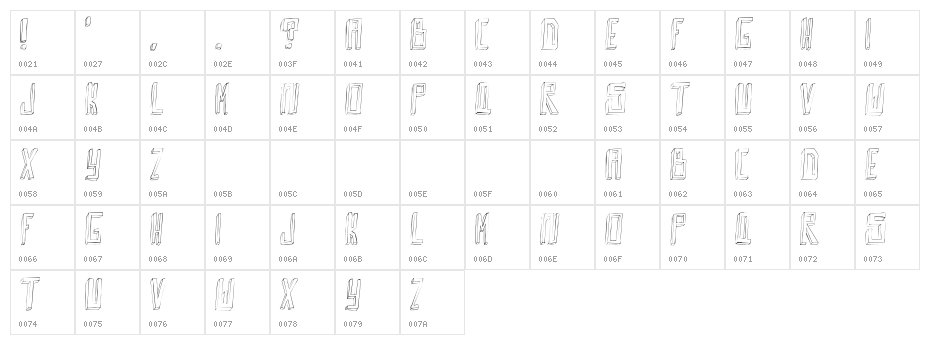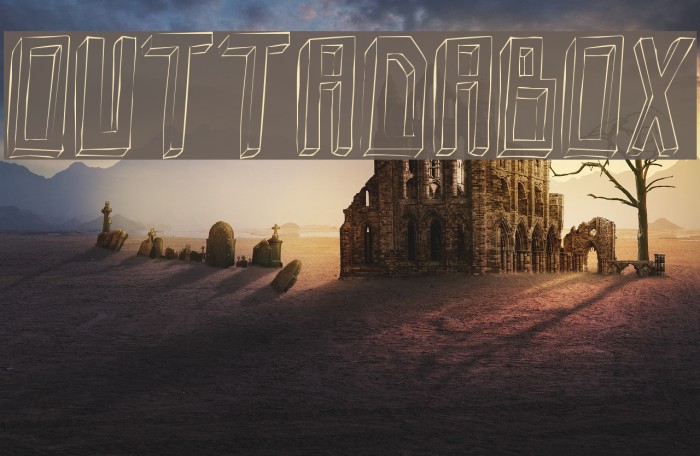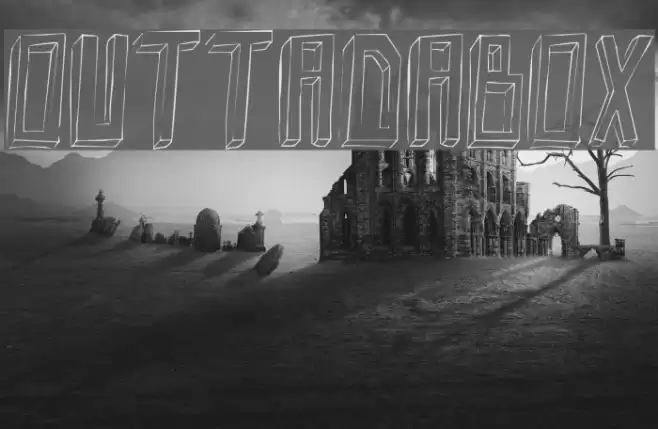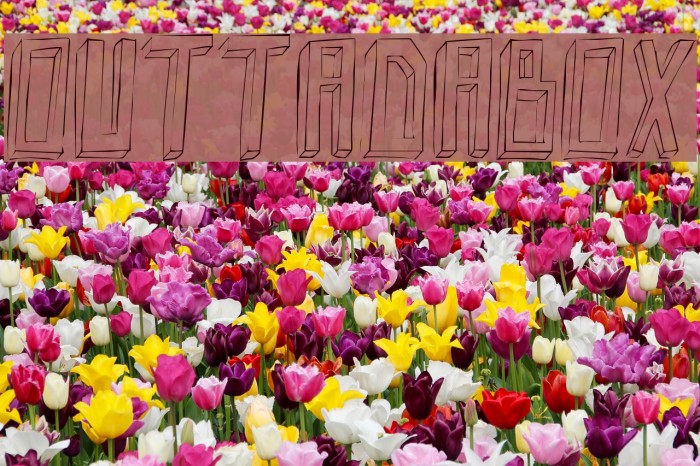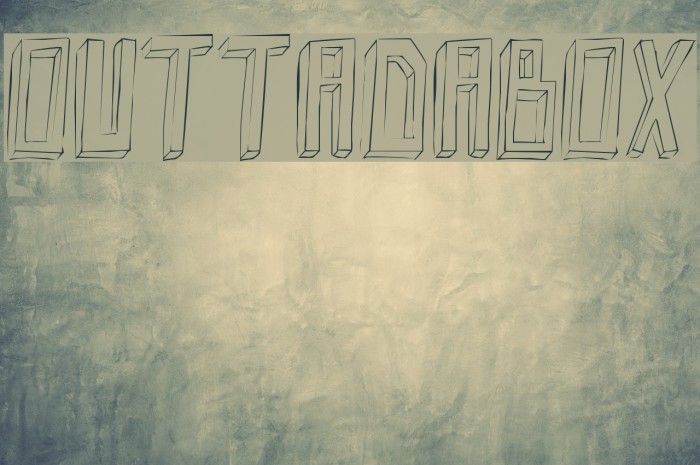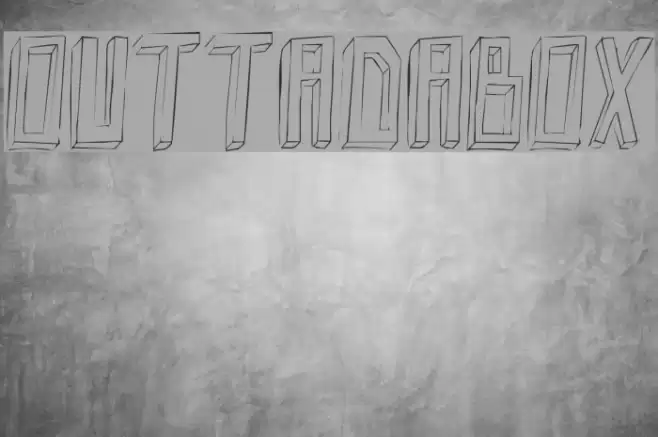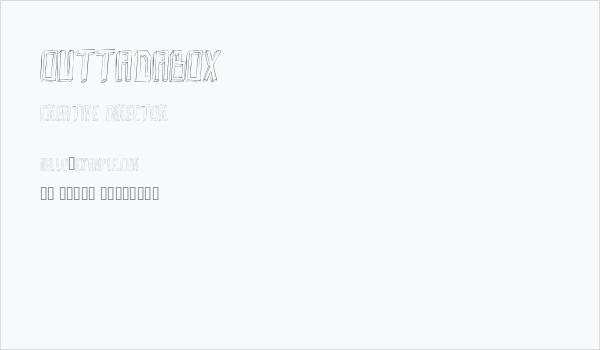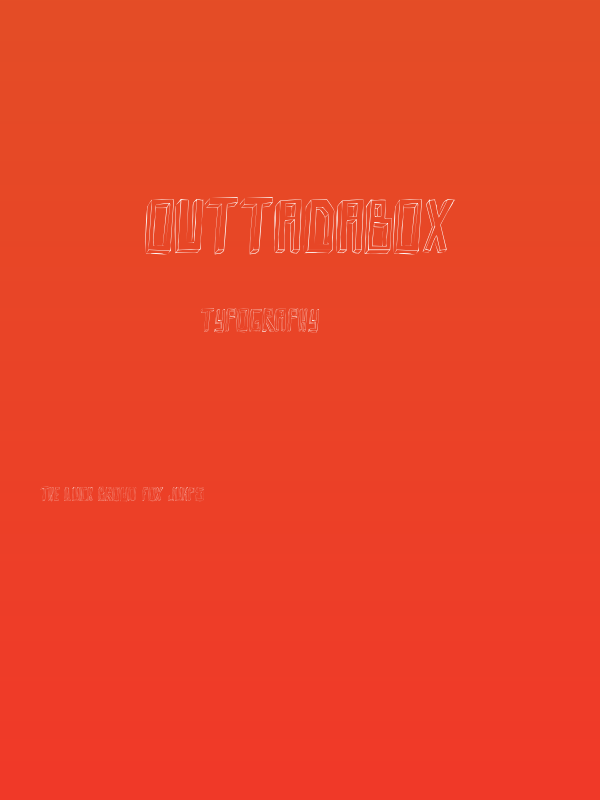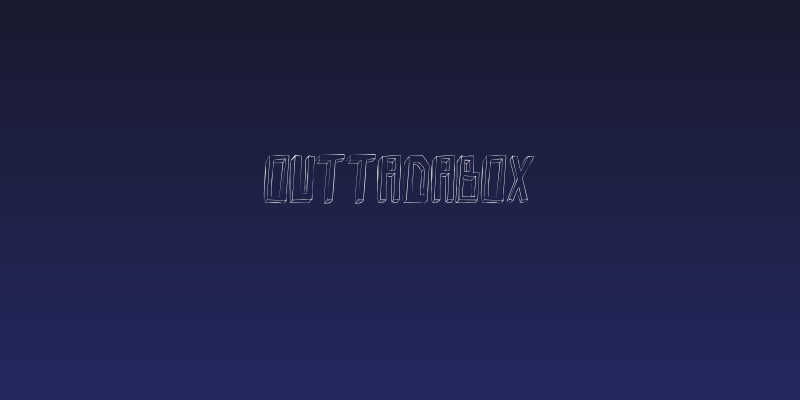
Outtadabox Font
Outtadabox Description
This font features a bold, three-dimensional style with a hand-drawn appearance. The letters are outlined with a sketch-like quality, giving them a dynamic and artistic feel. The uppercase and lowercase letters maintain a consistent geometric structure, while the numbers and special characters follow the same aesthetic, ensuring uniformity across the font. The font's unique design makes it stand out, with each character appearing as if it is emerging from the page, creating a sense of depth and movement.
| Proposed Projects | Ideal for creative projects such as posters, album covers, and branding materials that require a distinctive and artistic touch. |